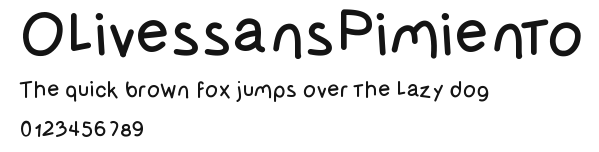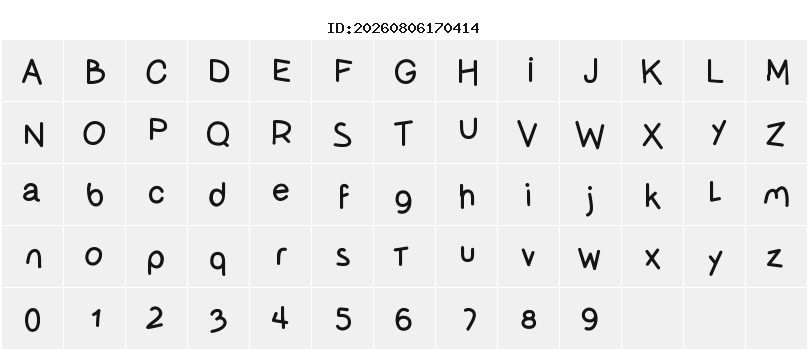
• Font Name: OlivessansPimiento
• Full Font Name: OlivessansPimiento
About OlivessansPimiento.ttf
OlivessansPimiento.ttf is a modern, elegant sans-serif font designed for ultimate readability and visual harmony. Perfect for branding, headlines, web design, and print materials.